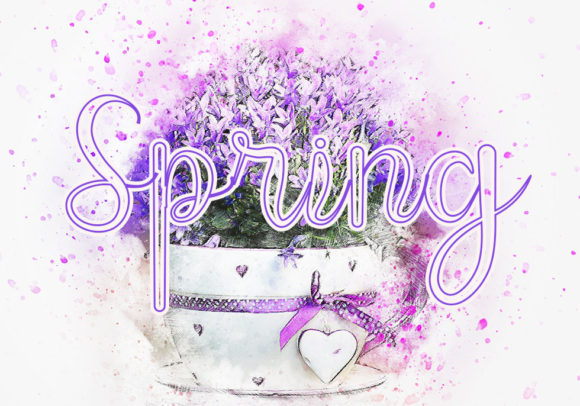
About Spring Font
Spring is a well balanced and delicate script font. Whatever the topic, this font will be a wonderful asset to your font library, as it has the potential to enhance any creation.